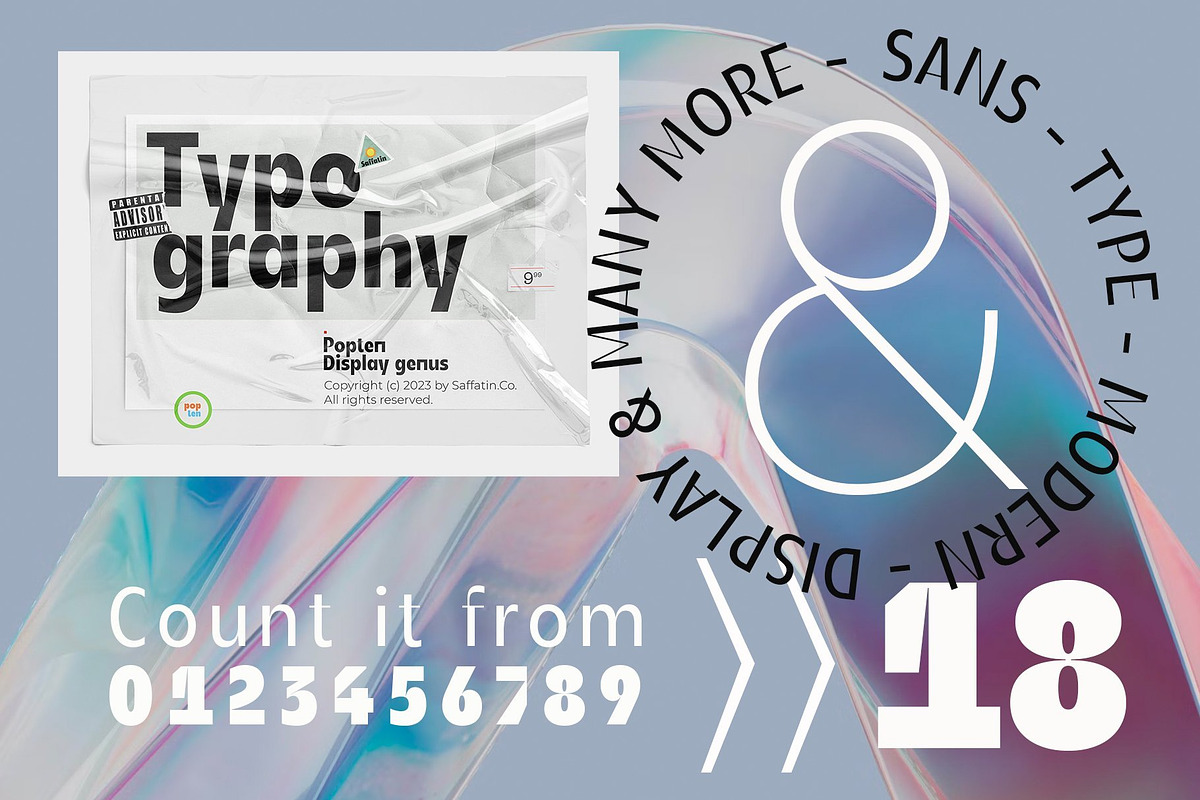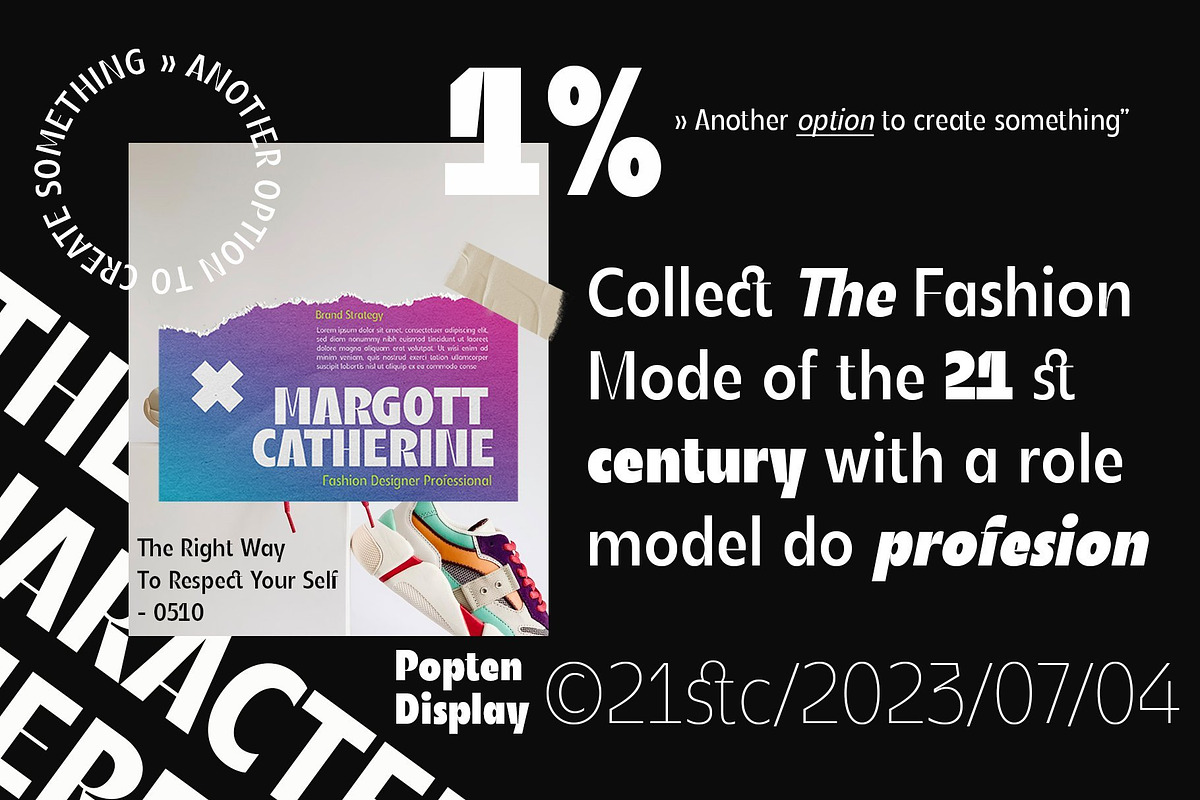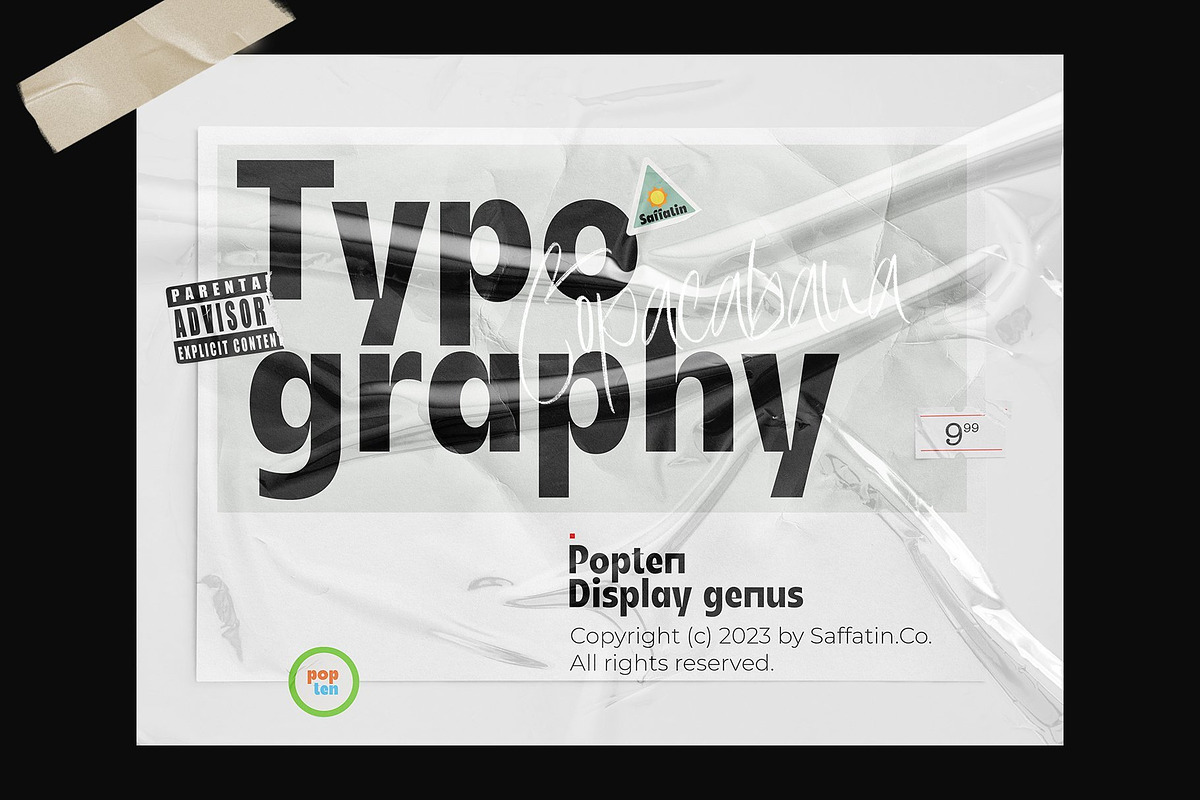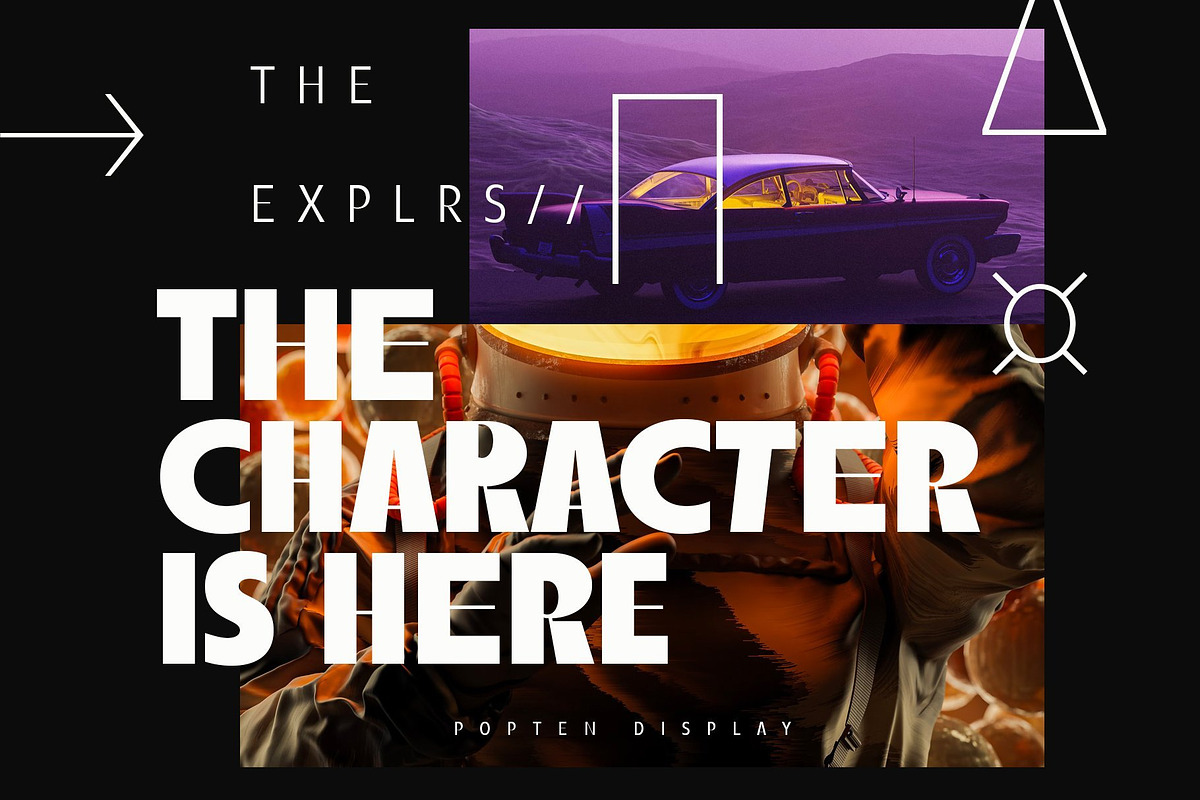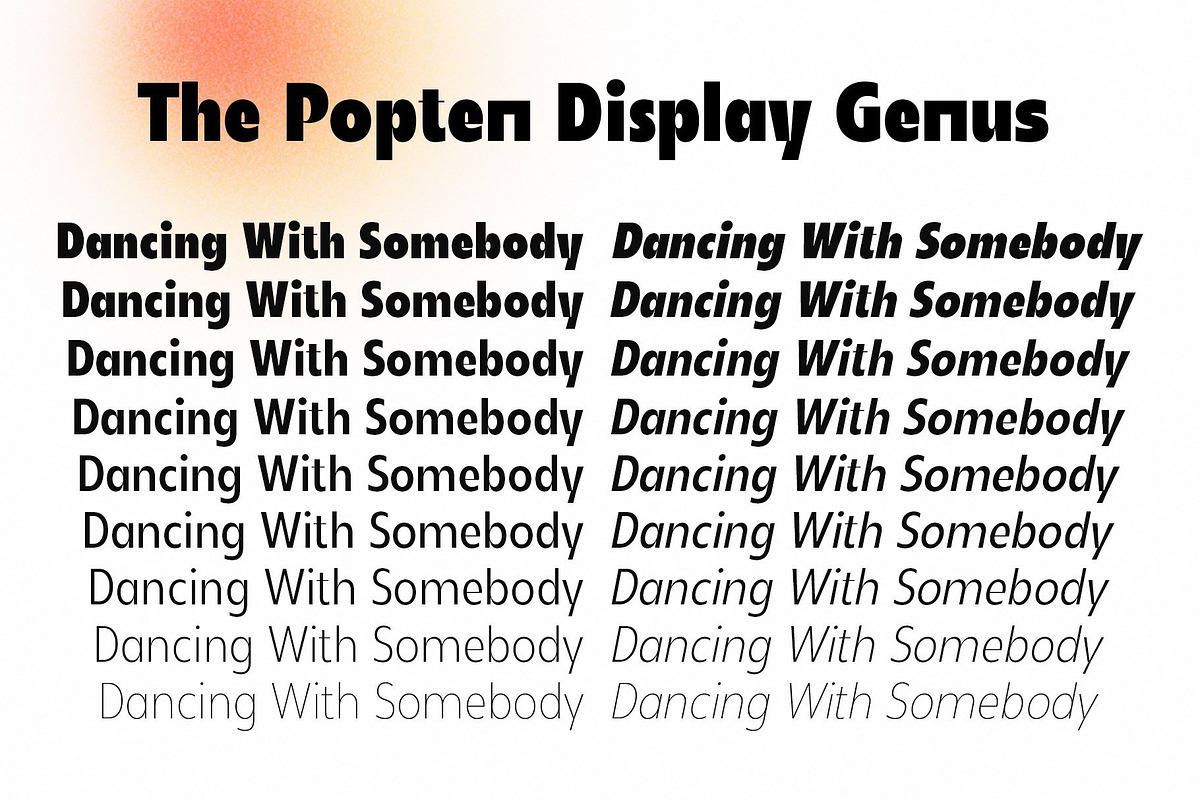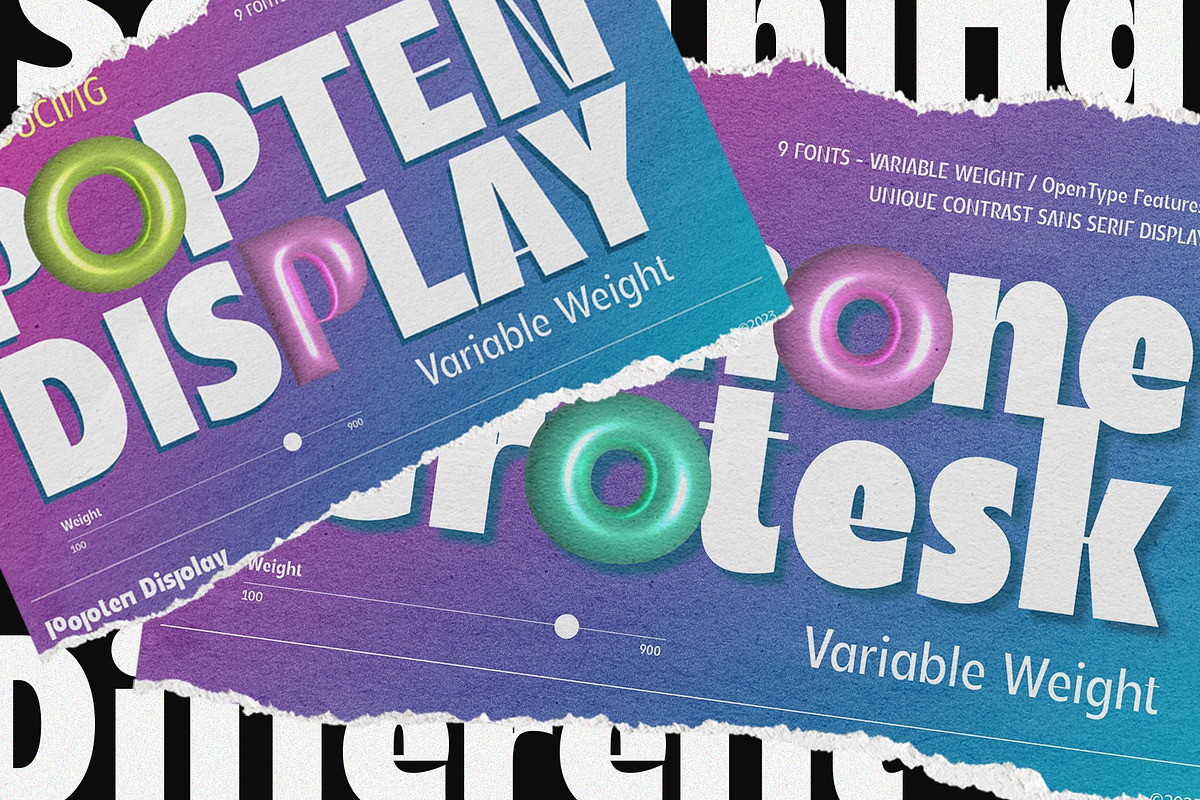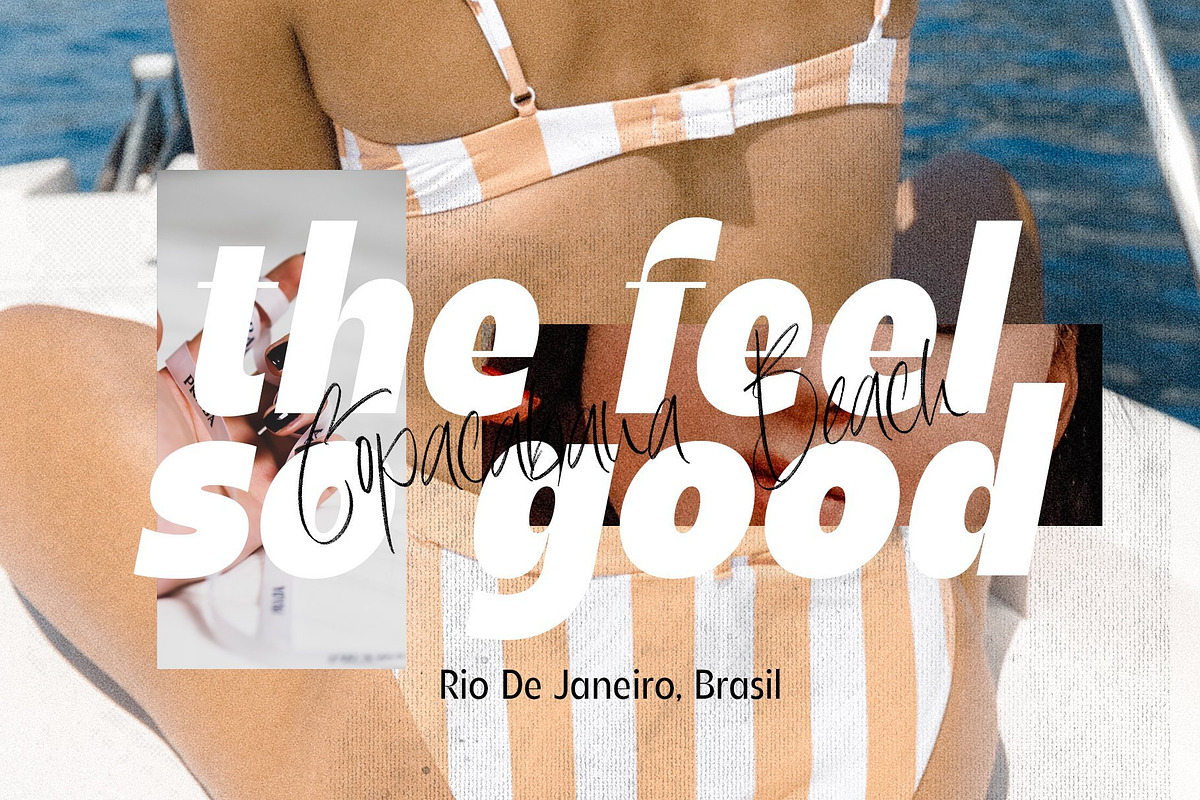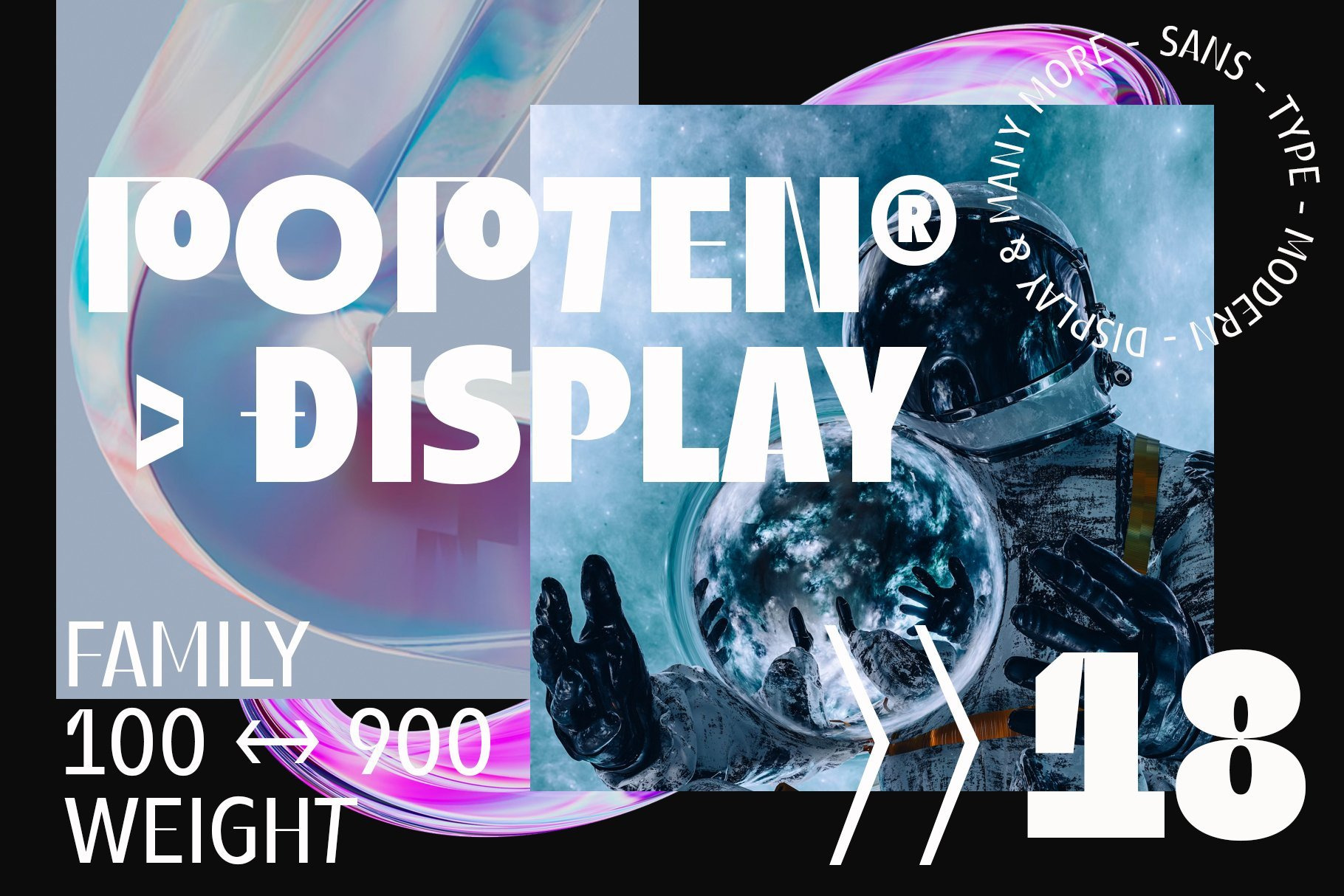
Popten Display Family Font
Popten is a modern minimalist design typeface with semi-condensed conture and includes alternative characters also some ligature. It is inspired by hype and urban design, freestyle and brutalism. Popten typeface is suited for anything lifestyle project with trend design. It was designed to be versatile, to blend in your design with light or dark through thin to black weights can add a lot of a touch of personality.